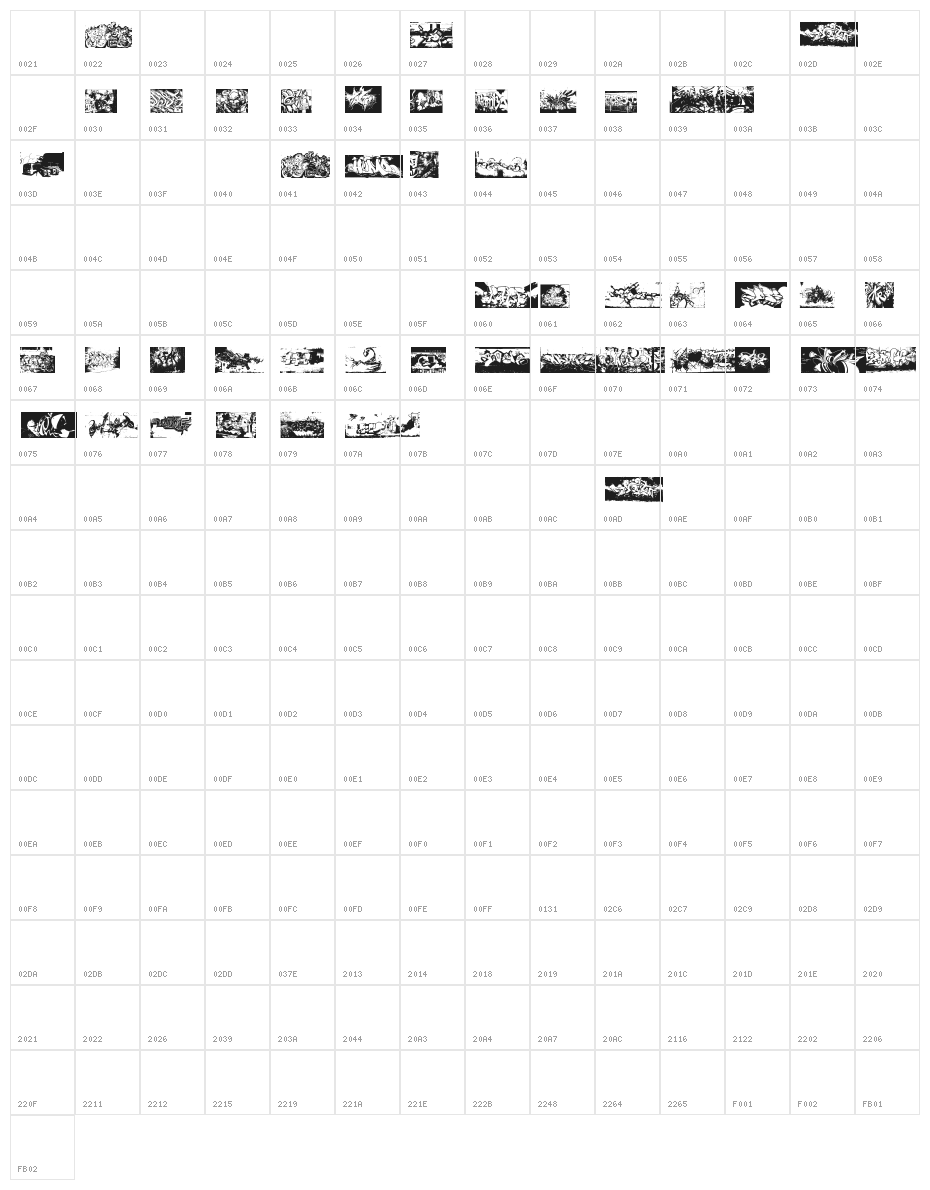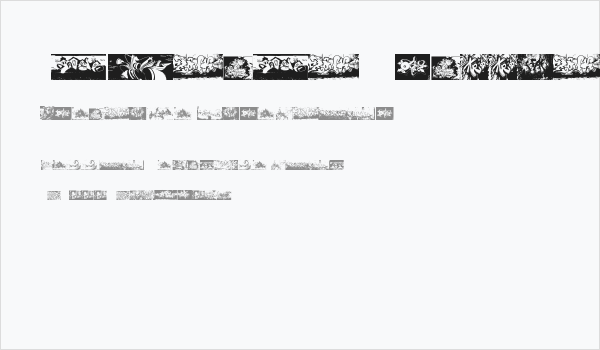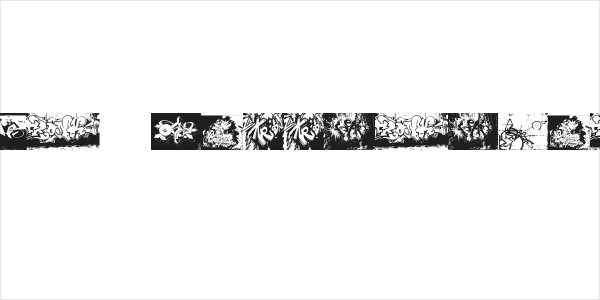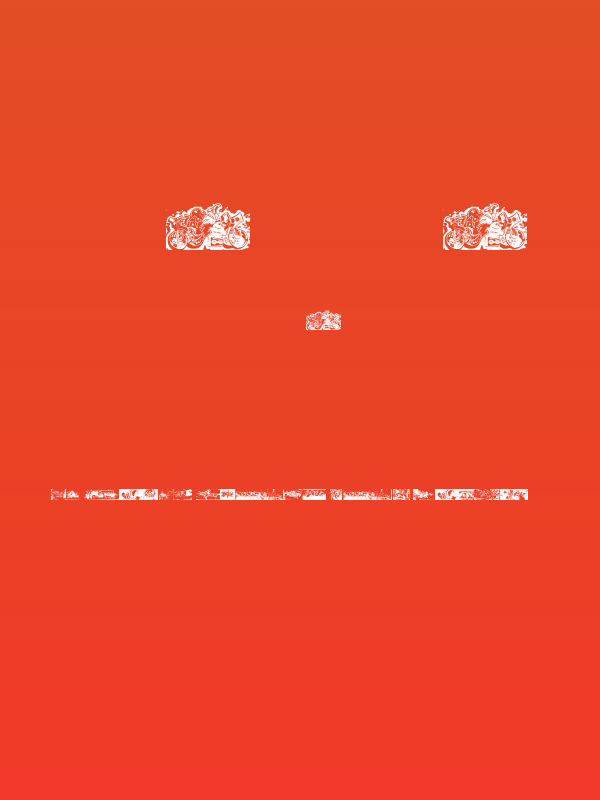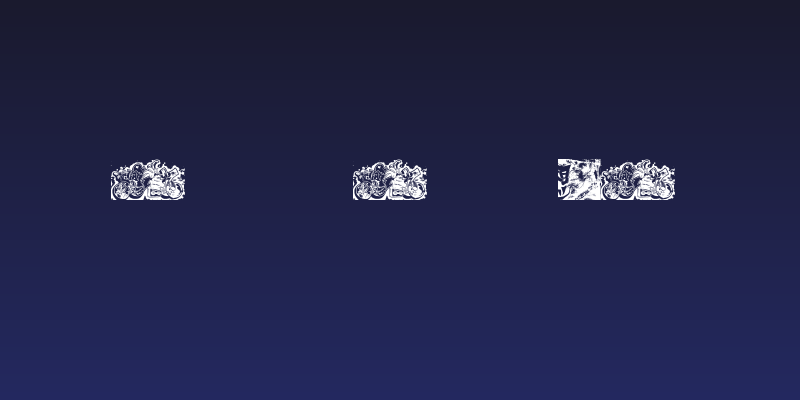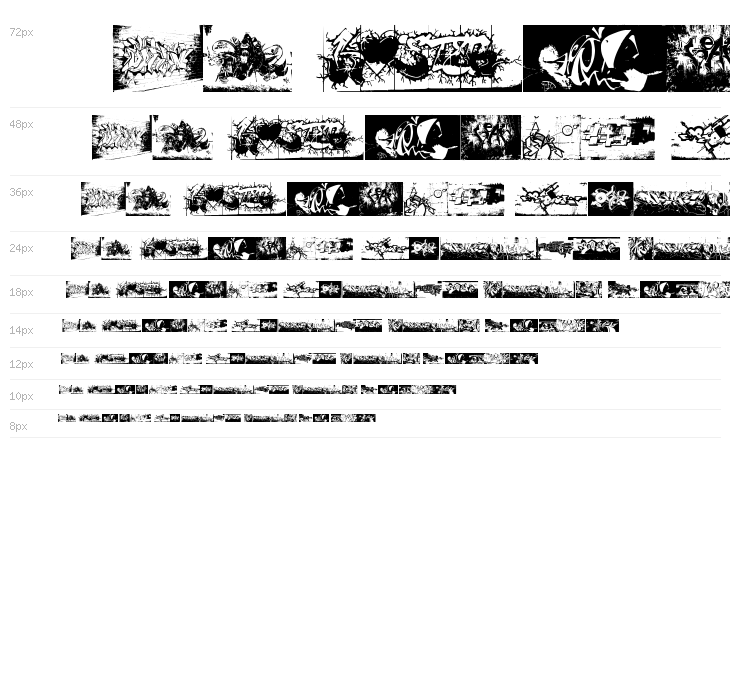
Instant Graffitication Font
This font is a vibrant and dynamic representation of urban street art, capturing the essence of graffiti with its bold, expressive strokes and intricate designs. Each character is uniquely crafted, featuring elaborate details and a sense of movement that mimics the spontaneous nature of graffiti. The letters are highly stylized, with exaggerated curves and angles that create a sense of energy and rebellion. The font's design is reminiscent of spray-painted murals, with a raw and edgy aesthetic that stands out. It's perfect for projects that aim to convey a sense of urban culture, creativity, and nonconformity.
| Overall Style | Urban, Edgy, Artistic |
| Use Case | Logos, Posters, Merchandise |
| Proposed Projects | Ideal for streetwear branding, music album covers, urban event posters, and any project seeking an edgy, artistic vibe. |